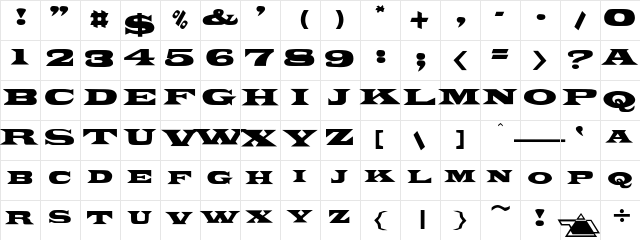
PonchoVia Regular Font Preview
PonchoVia Regular
PonchoVia Regular Font Details
Design Context for PonchoVia Typeface
PonchoVia offers clean, dependable letterforms without strong stylistic allegiance, making it a practical choice for designers who need flexibility.
Pro Tip: Use PonchoVia in both headline and body roles to test its range before committing to a single application.